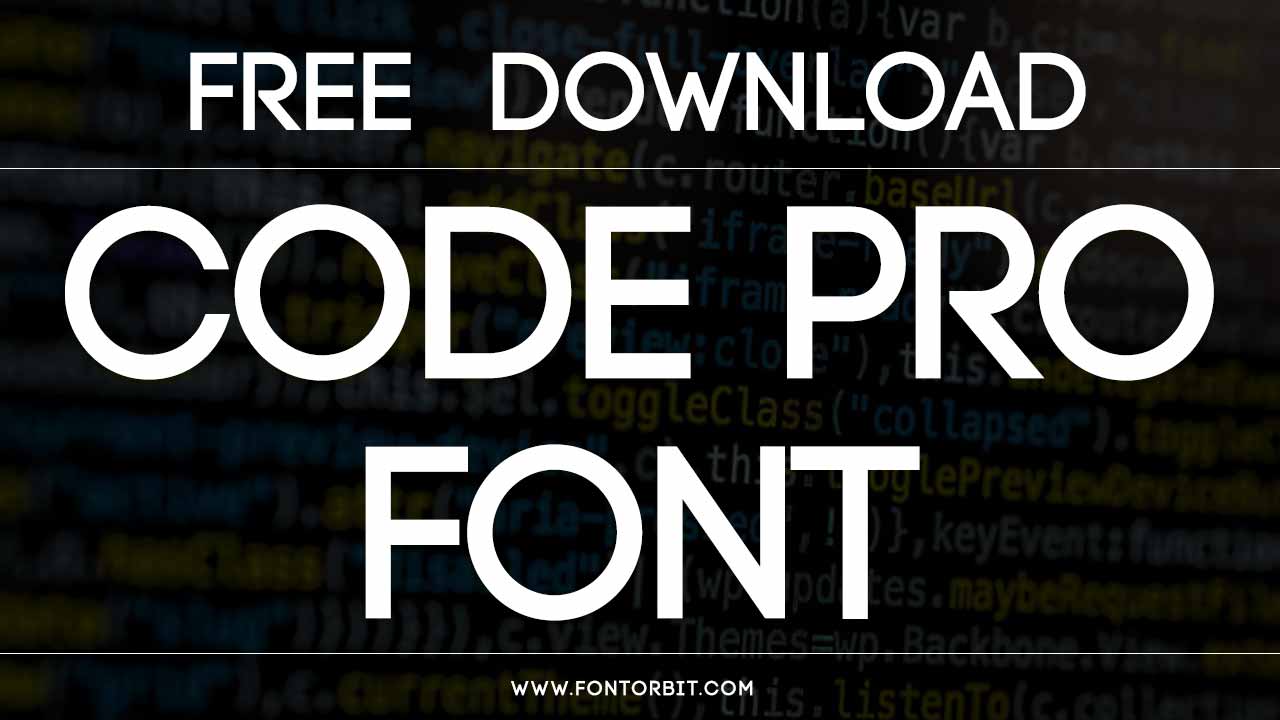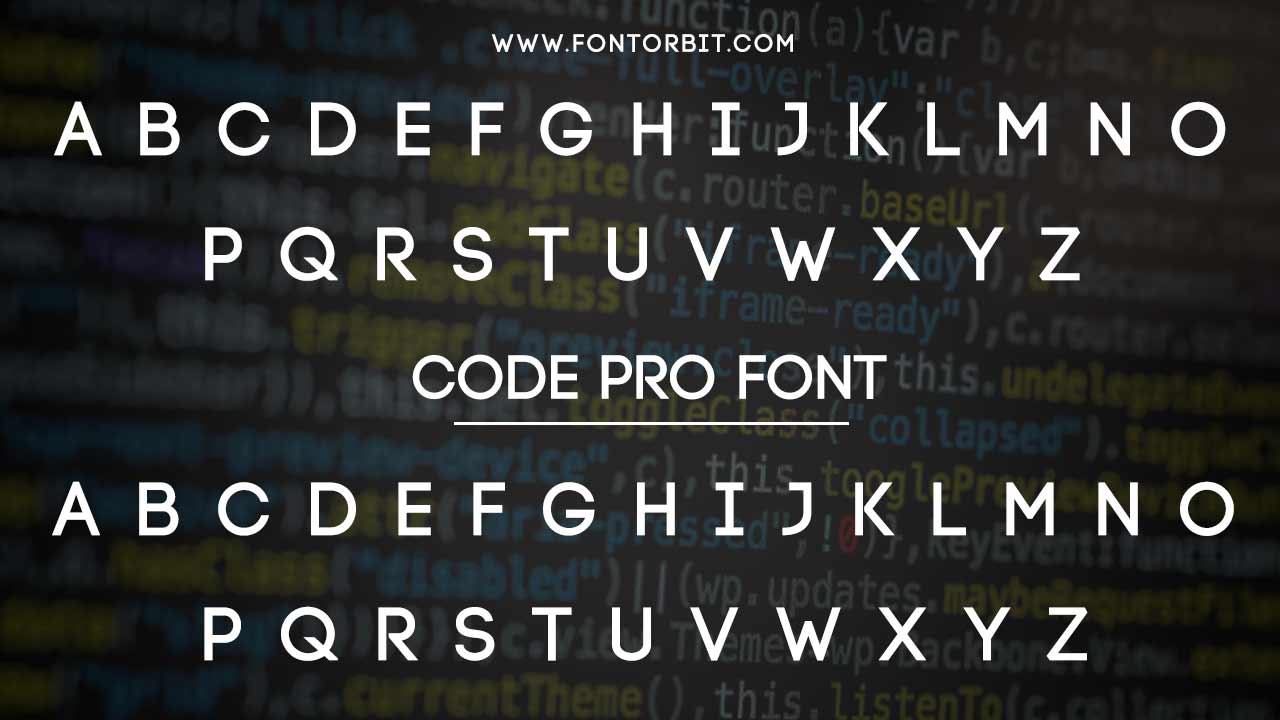
Code Pro is a sleek, modern sans-serif typeface that blends minimalism with boldness. Designed by Svetoslav Simov and released by Fontfabric, it offers a versatile solution to elevate your branding or enhance the readability of your digital projects. With its geometric forms and clean lines, it works seamlessly in graphic design and coding environments alike. This post explores the top reasons to choose Code Pro for your design needs and why it’s perfect for building a strong brand identity.
A Wide Range Of Font Weights And Styles
The Code Pro font family offers a broad spectrum of styles that suit various design projects. Whether you’re designing a logo, website, or print materials, the font family’s versatility ensures that you have the right style for any context.
Font Family Options:
- Code Pro Light
- Code Pro Regular
- Code Pro Bold
- Code Pro Black
- Code Pro ExtraLight
- Code Pro Medium
- Code Pro SemiBold
With this variety, you can create strong contrasts between headings, body text, and call-to-action buttons in your designs. The different weights work seamlessly for both commercial use and corporate branding, from websites to marketing materials.
Ideal For Both Print And Digital Projects
Whether your project is destined for print or digital platforms, Code Pro delivers excellent results across both mediums. The font’s legibility and boldness make it perfect for posters, flyers, and business cards in the print world, while it’s clean lines and sharp structure make it ideal for web fonts and mobile interfaces in the digital realm.
Here’s a breakdown of how Code Pro can be used for different types of projects:
| Project Type | Best Font Style | Recommended Usage |
| Logos | Code Pro Regular, Bold | Clean and modern branding |
| Posters | Code Pro Black | Bold, impactful titles and slogans |
| Websites | Code Pro Medium, Light | Clear text for web readability |
| Social Media | Code Pro SemiBold | High-contrast posts and captions |
| Presentations | Code Pro ExtraLight | Subtle and professional for slides |
This variety ensures that you can easily adapt Code Pro to any design project, ensuring that your brand remains visually cohesive and professional.
Great For Branding And Identity
When it comes to corporate fonts, Code Pro is a top contender. Its clean, geometric design is sophisticated yet approachable, making it ideal for businesses looking to communicate a modern, forward-thinking brand image. Its versatile weight options mean you can create a strong brand identity that works across logos, website headers, and business cards.
Key reasons why Code Pro is a strong branding choice:
- Sleek Design: Clean lines and modern proportions for a professional look.
- Legible Across Platforms: Works well in both large and small sizes for print and digital media.
- Multiple Weights: Easily create contrast and hierarchy in your designs for better visual communication.
- High Versatility: Suitable for a wide range of industries, including tech, retail, and creative sectors.
Perfect For Coding Applications
In addition to being an excellent choice for branding and print, Code Pro is also highly suitable for coding environments. It’s inspired by Source Code Pro and other monospaced fonts, which makes it ideal for text editors, coding applications, and any design that requires precise alignment and readability. The clean letterforms ensure that each character is distinguishable, even in small sizes.
Code Pro is ideal for:
- Developers working on coding projects.
- Text editors require clear font choices for readability.
- Online code repositories where clarity is critical.
4.What Makes Code Pro Different From Other Sans-Serif Fonts?
Code Pro combines the minimalism of traditional sans-serif fonts with modern geometric shapes, making it ideal for both branding and coding applications.
5.Is Code Pro Available In Multiple Weights?
Yes, Code Pro offers a range of weights from ExtraLight to Black, giving you plenty of options for contrast and design versatility.